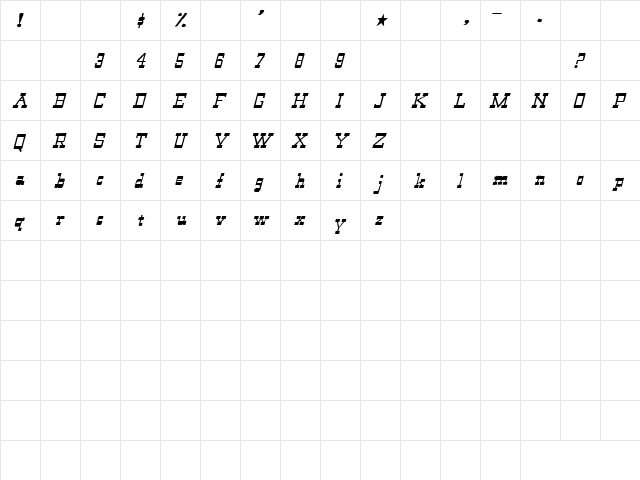
Take It Easy 6 Regular
Design Context for Take It Easy 6 Typeface
Take It Easy 6 is a composed and adaptable typeface that performs quietly and consistently across a wide range of design contexts.